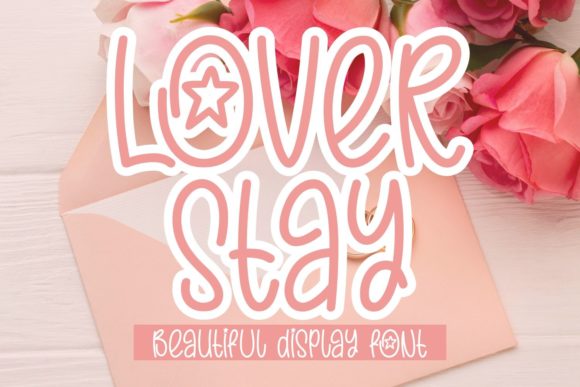
Journey through a world of whimsical charm and playful elegance with Lover Stay Font, a display font that captures the essence of joy and lightheartedness. Its playful curves and whimsical details evoke a sense of nostalgia, inviting you to embrace the magic of childhood and let your creativity soar.
Designed with the artistic touch of Rifki (7ntypes), Lover Stay Font is not just a collection of letters; it's an invitation to enter a realm of imagination and wonder. Its enchanting characters dance across the page, captivating the eyes with their sweet and playful demeanor. It's a font that speaks to the young and the young at heart, reminding us of the boundless joy and limitless possibilities that lie within the realm of imagination.
Whether you're crafting designs for children's games, creating logos for playful brands, or simply seeking a touch of whimsy in your creative projects, Lover Stay Font is the perfect choice. Its versatility knows no bounds, allowing you to weave tales of adventure, laughter, and endless fun.
With Lover Stay Font, transform your creations into captivating visual masterpieces. Its charming characters will add a touch of magic to your designs, capturing the attention of your audience and leaving them enchanted. Unleash your creativity and embark on an artistic adventure where imagination reigns supreme.
As you wield the power of Lover Stay Font, your words and designs will take on a life of their own, captivating hearts and spreading joy wherever they go. So, embrace the playful spirit of Lover Stay Font and let your imagination soar to new heights. It's time to create designs that ignite the imagination and leave an unforgettable impression.